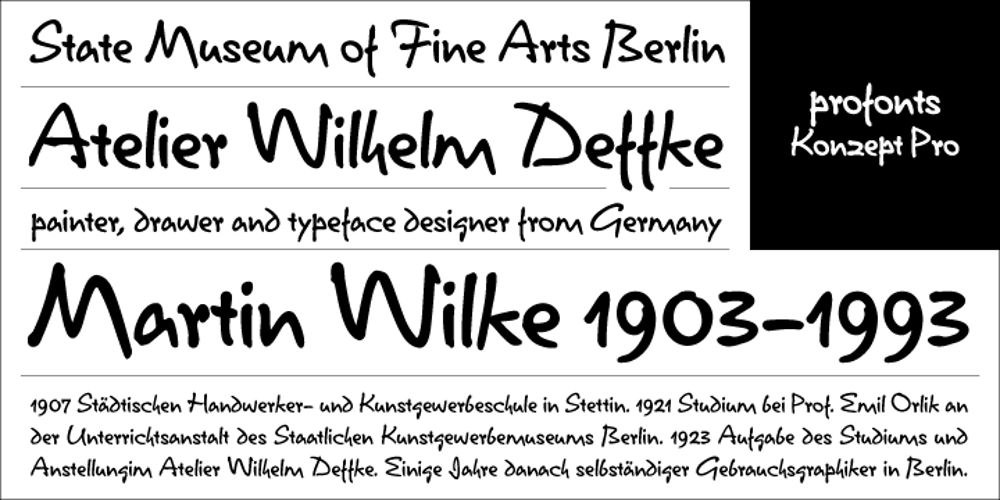
Konzept
Konzept font
Konzept Font Family was designed by Ralph M. Unger and published by profonts. Konzept contains 1 styles and family package options. Konzept was originally designed in 1968 by Berlin designer Martin Wilke for the former German type foundry Stempel AG. Ralph M. Unger revived this beautiful contemporary typeface in 2005 for the profonts library. He re-designed, completed and digitally remastered it. Konzept is a very casual typeface with character forms rendering it a both very natural and realistic handwriting script.